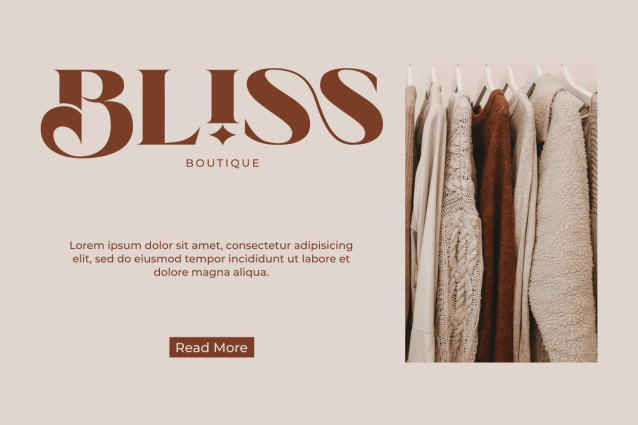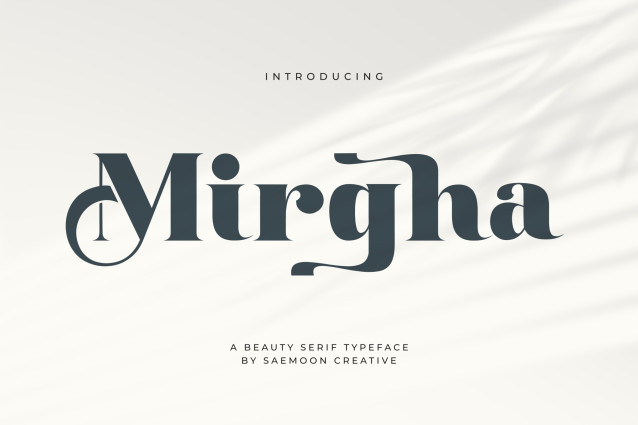
Mirgha Font
Mirgha Font is a serif typeface that combines classic elegance with a modern artistic touch. Each letter is designed with gentle curves, bold stems, and subtle decorative elements that create a luxurious yet highly legible appearance. The elegant curved shape of the M, along with the unique forms of the g and h, allows Mirgha to stand out in high-end design projects.
This font is perfect for branding needs such as cosmetic packaging, editorial layouts, fashion logos, product packaging, wedding invitations, and social media designs that aim for a refined and elegant look. With its modern serif style and artistic letter structure, Mirgha delivers a captivating visual presence.